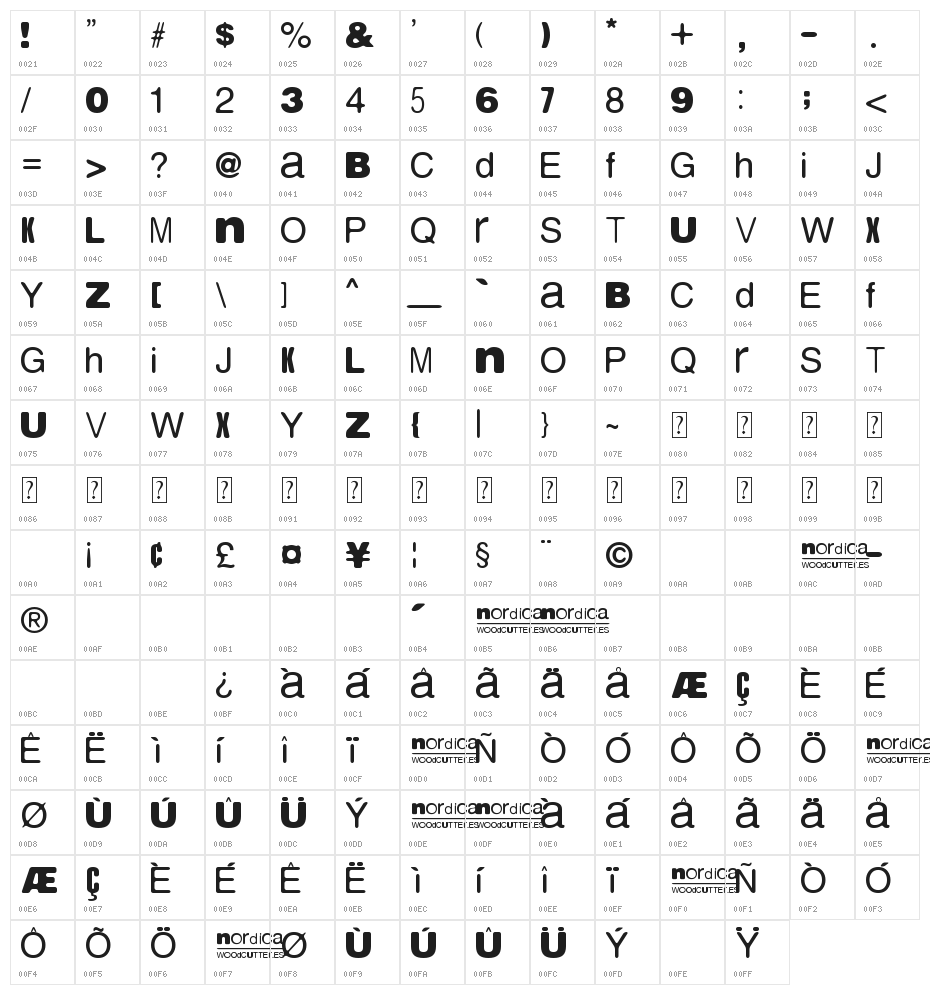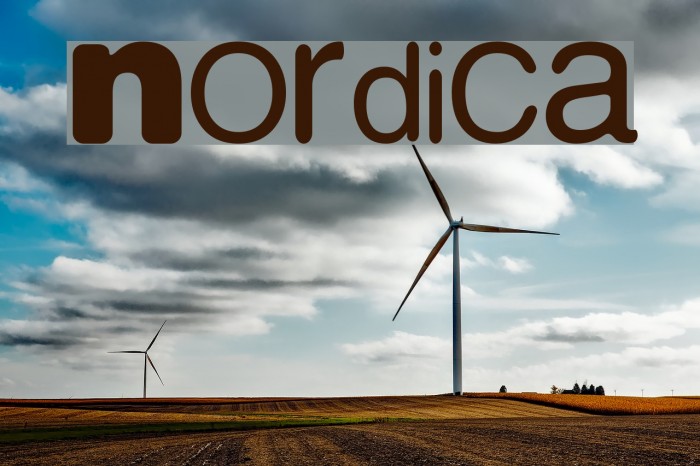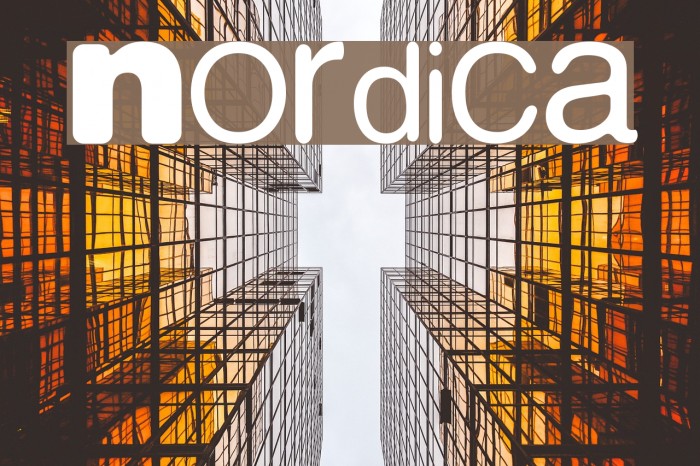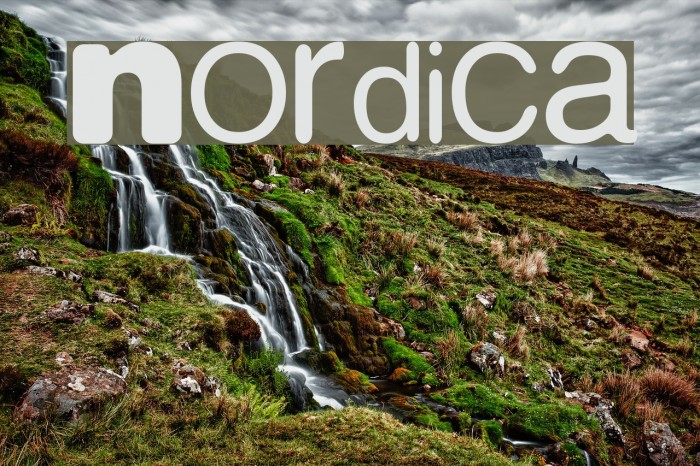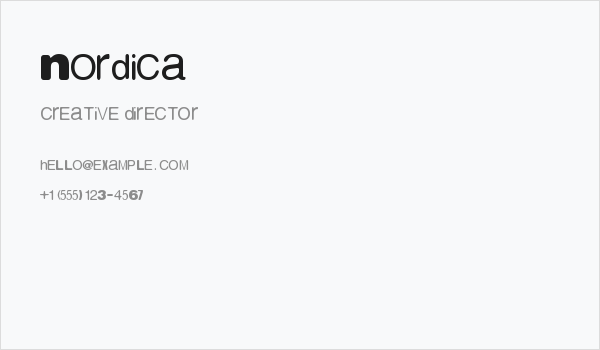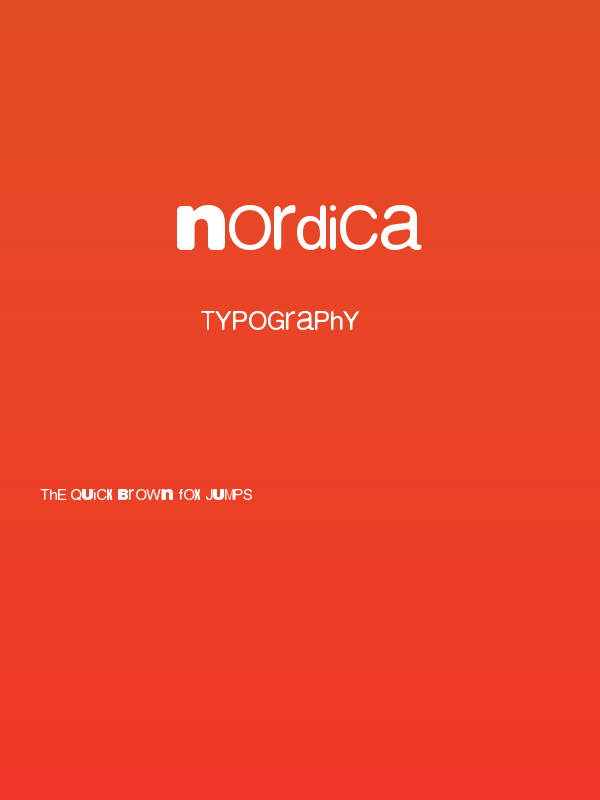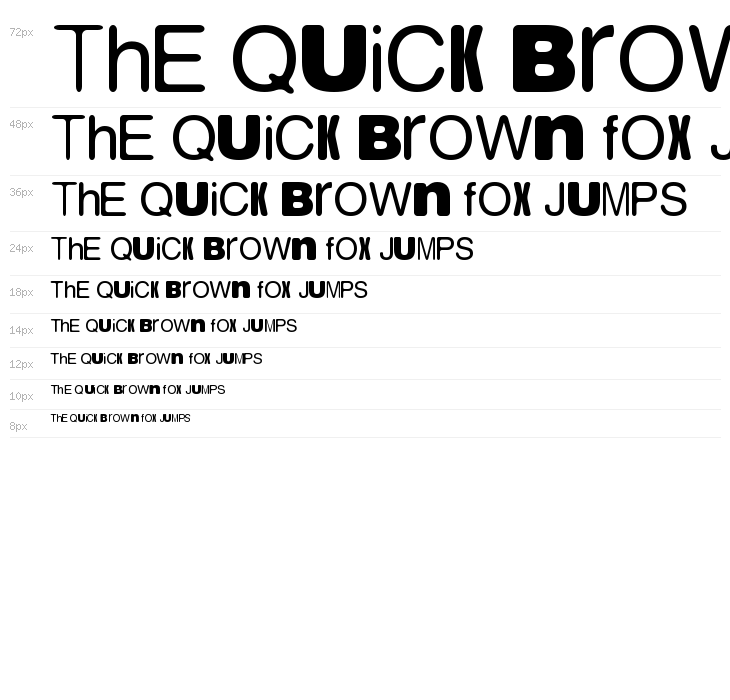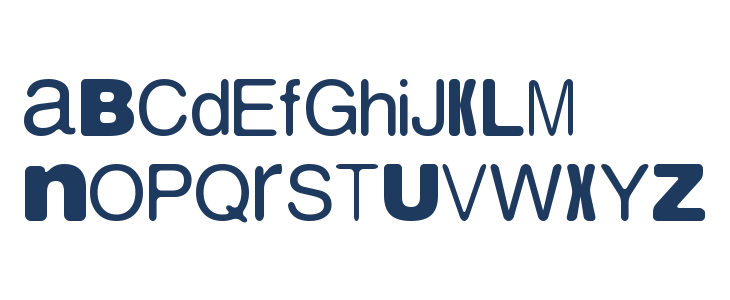
Nordica Font
Nordica Description
This font features a bold and playful design with a modern twist. The characters are rounded and have a soft, friendly appearance, making it approachable and easy to read. The uppercase letters are particularly striking, with a strong presence that commands attention. The lowercase letters maintain the same rounded style, offering a harmonious balance. Numbers and special characters are consistent with the overall design, ensuring uniformity across all text. This font's unique style makes it suitable for a variety of creative projects.